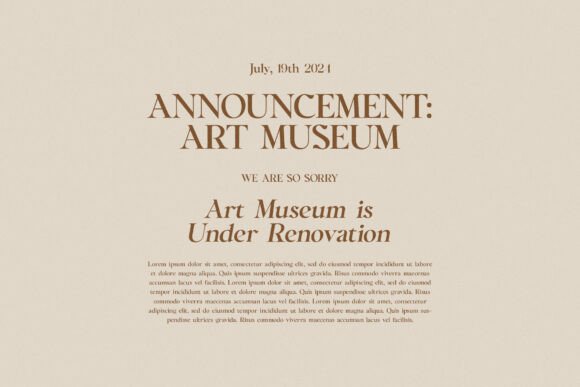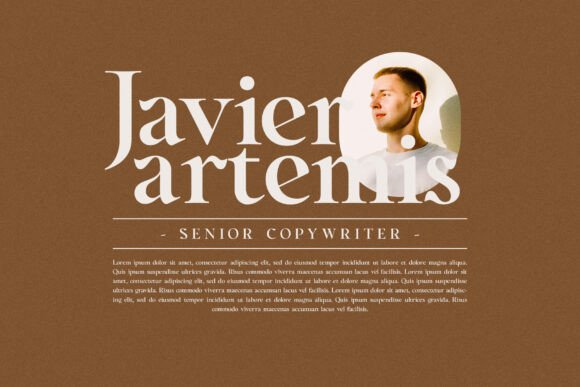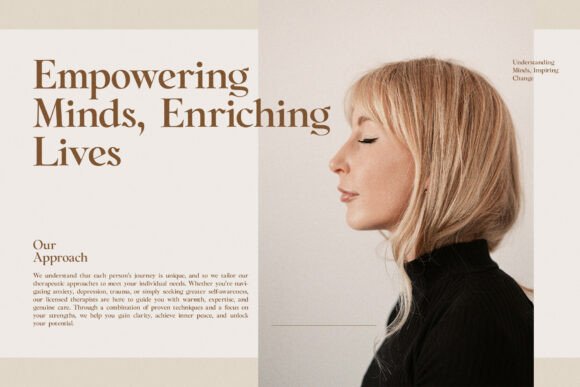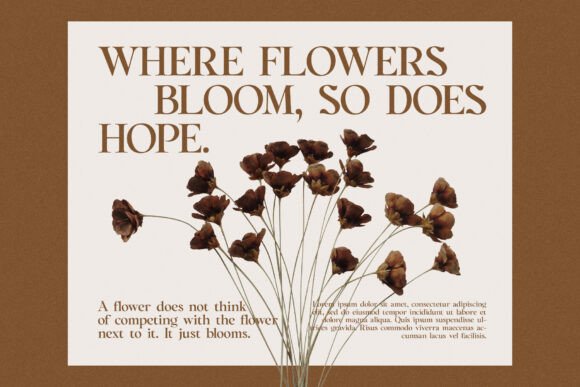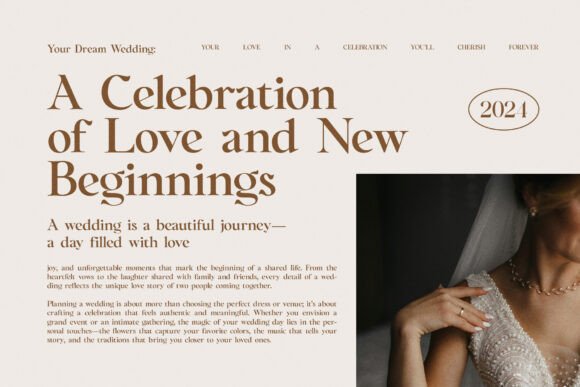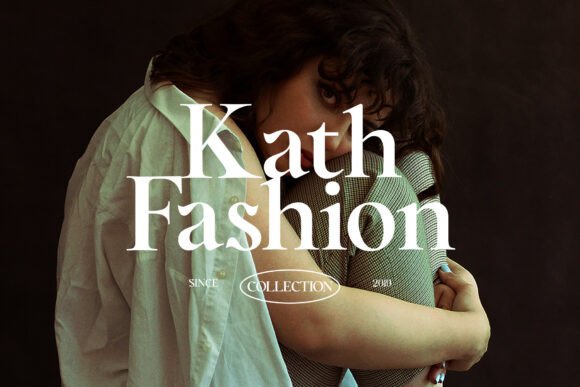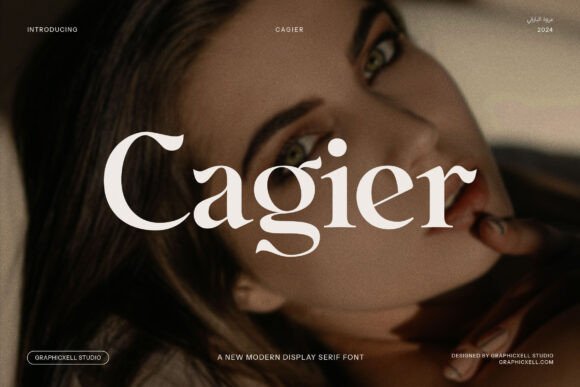
Cagier Elegant Display Font – A Stylish Blend of Modern Elegance and Vintage Flair
Introducing Cagier Elegant Display Font, a sophisticated serif typeface designed to bring a sense of timeless elegance to your designs. With its refined curves and distinctive style, this modern font embodies a perfect balance of vintage charm and contemporary sophistication, making it a versatile choice for any creative project.
Elevate Your Designs with Timeless Elegance
Whether you’re crafting a luxury brand, designing a logo, or working on premium product packaging, Cagier offers a unique touch that elevates your work. Its beautiful, high-contrast serifs and carefully crafted letterforms give it an air of elegance, making it ideal for branding, websites, magazines, and advertisements that require a striking visual identity.
The Perfect Balance of Vintage and Modern
The font’s vintage appeal adds character to projects, while its modern design ensures readability and versatility across both print and digital mediums. This balance makes Cagier a go-to choice for designers looking to create visually stunning and effective designs.
Key Features of Cagier Elegant Display Font
- Sophisticated Serif Typeface: Cagier boasts a refined, elegant design with high-contrast serifs that add a touch of luxury to any project.
- Vintage Charm with a Modern Twist: The font combines the classic appeal of traditional serif typefaces with modern design elements, making it perfect for contemporary projects.
- Versatile and Readable: Cagier is designed to be versatile, ensuring readability across various mediums, from print to digital platforms.
- Ideal for High-End Designs: Use Cagier for luxury branding, high-end product packaging, magazines, and websites that require a sophisticated look.
Why Choose Cagier Elegant Display Font?
Cagier stands out from other fonts due to its unique blend of vintage flair and modern elegance. Its high-contrast serifs and carefully crafted letterforms make it perfect for designers who want to add a touch of sophistication to their work. Whether you’re creating a luxury brand or designing premium product packaging, Cagier provides the perfect balance of style and readability.
Applications of Cagier Elegant Display Font
Cagier is an incredibly versatile font that can be used in a variety of design projects, including:
- Luxury Branding: Create a lasting impression with Cagier’s elegant and sophisticated design, perfect for luxury brands that want to convey exclusivity and high-end quality.
- Logo Design: Stand out with a logo that exudes elegance and refinement, thanks to Cagier’s distinctive style.
- Premium Product Packaging: Elevate your product packaging with Cagier’s high-contrast serifs and vintage appeal, making your products stand out on store shelves.
- Websites and Digital Platforms: Ensure a sophisticated online presence with Cagier, which is optimized for digital use and provides a seamless user experience.
- Magazines and Advertisements: Use Cagier to create visually stunning magazines and advertisements that capture attention and convey a sense of luxury.
Tips for Using Cagier Elegant Display Font
To get the most out of Cagier, consider the following tips:
- Pair with Complementary Fonts: Combine Cagier with sans-serif fonts for a modern contrast or with other serif fonts for a classic look.
- Experiment with Sizes and Weights: Use Cagier in various sizes and weights to create visual hierarchy and emphasize key elements in your design.
- Utilize White Space: Take advantage of Cagier’s elegant design by incorporating ample white space in your layouts to enhance readability and focus.
Cagier Elegant Display Font is a powerful tool for designers looking to add a touch of timeless elegance and vintage charm to their projects. Its sophisticated design, high-contrast serifs, and versatility make it an ideal choice for luxury branding, premium product packaging, websites, magazines, and advertisements. By incorporating Cagier into your design toolkit, you can create visually stunning and effective designs that leave a lasting impression.
Whether you’re a seasoned designer or a crafty DIY enthusiast, Cagier provides the perfect blend of style and functionality to elevate your creative projects. Discover the elegance and sophistication of Cagier Elegant Display Font and take your designs to the next level.